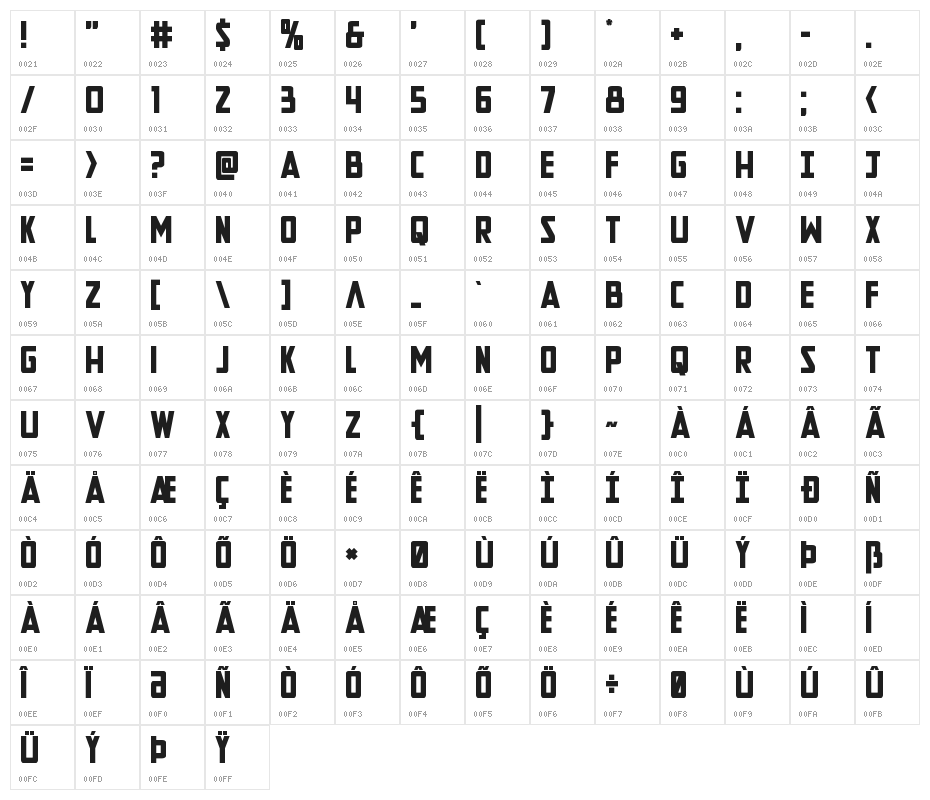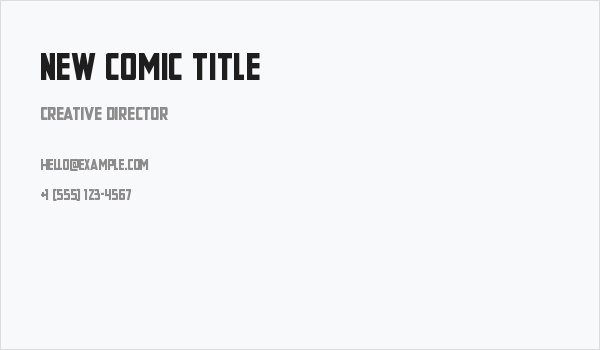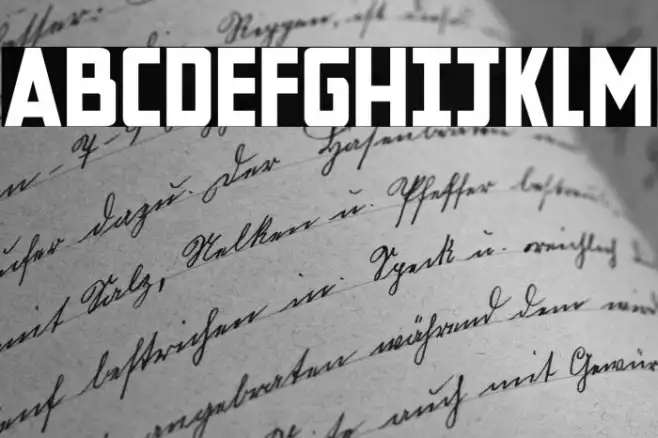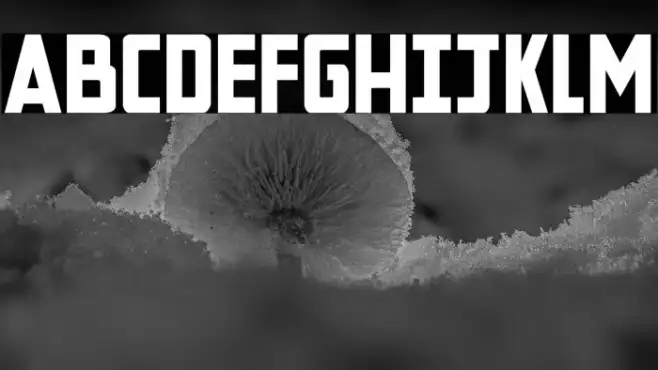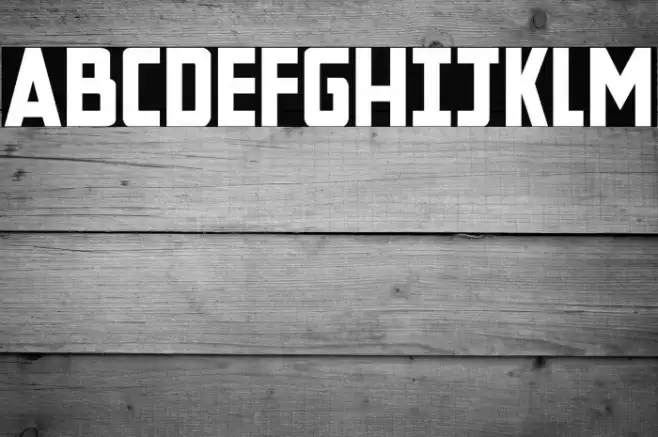
New Comic Title Font
New Comic Title Description
This font features bold, geometric letterforms with a strong, impactful presence. The characters are uniformly thick, giving them a robust and solid appearance. The uppercase letters are particularly striking, with sharp angles and clean lines that create a sense of modernity and strength. The numerals and special characters maintain this bold style, ensuring consistency across all glyphs. The overall design is straightforward yet powerful, making it suitable for attention-grabbing headlines and titles.
| Proposed Projects | Ideal for comic book titles, posters, logos, and any project requiring a bold, eye-catching typeface. |